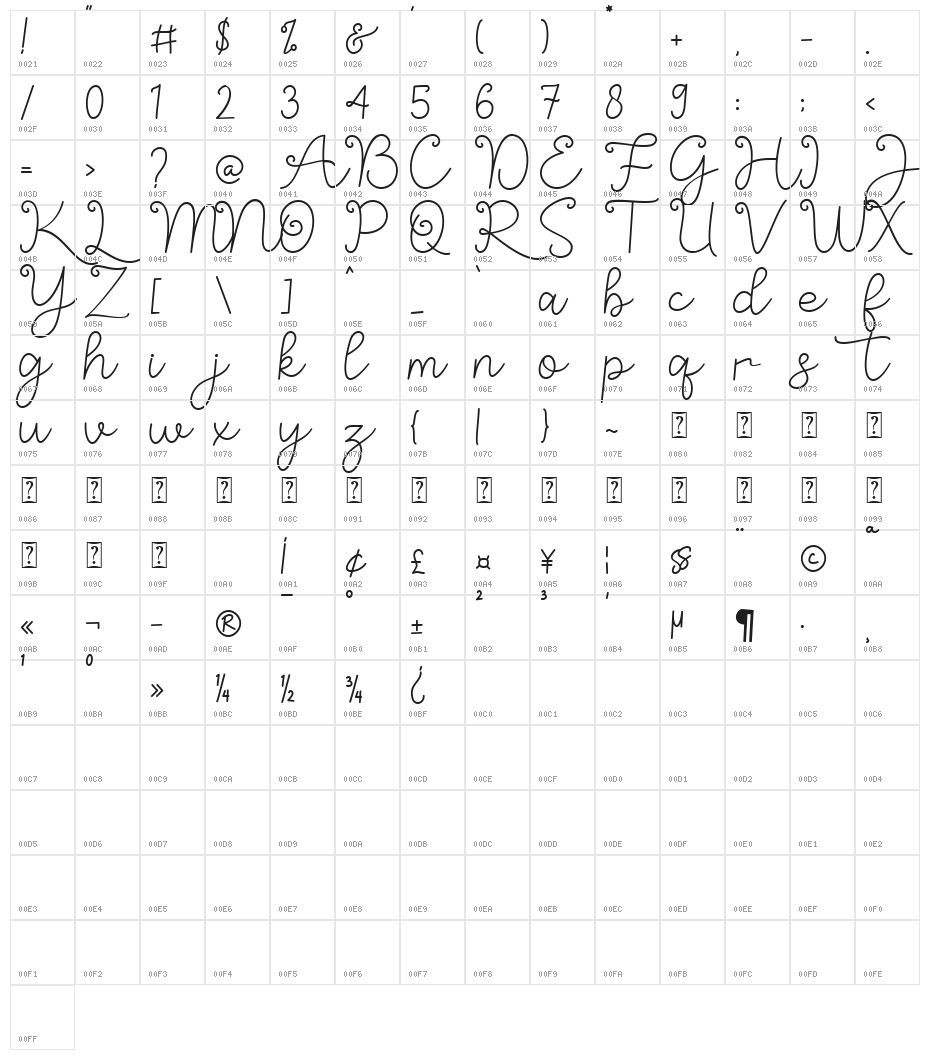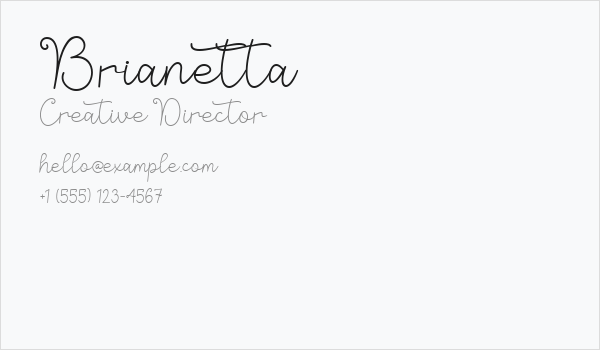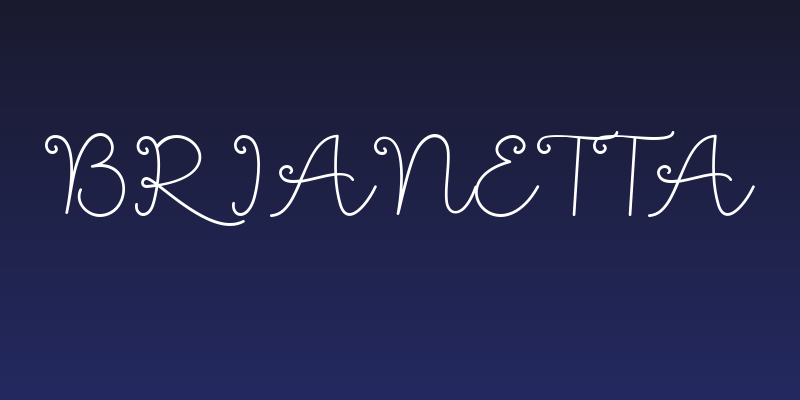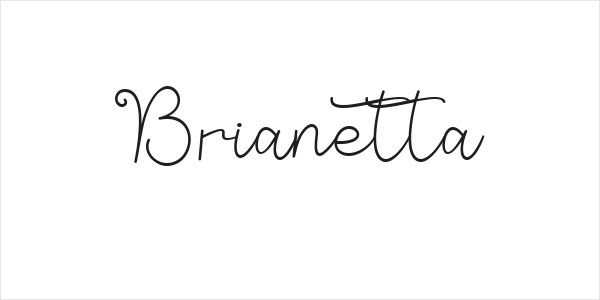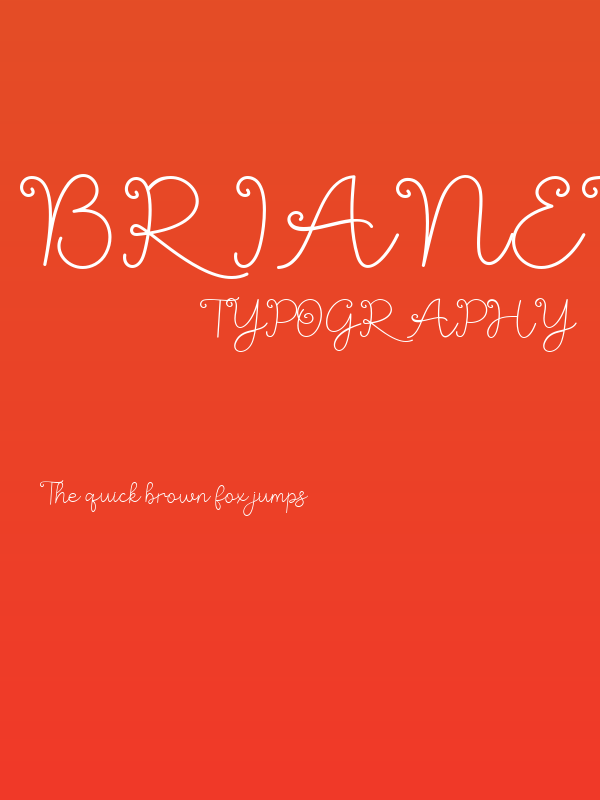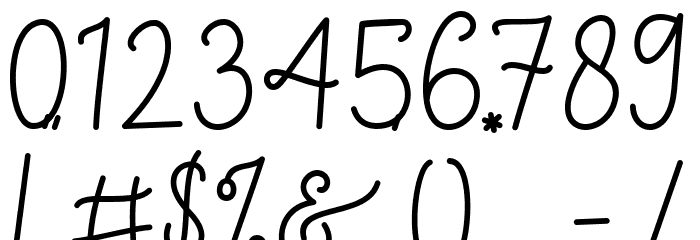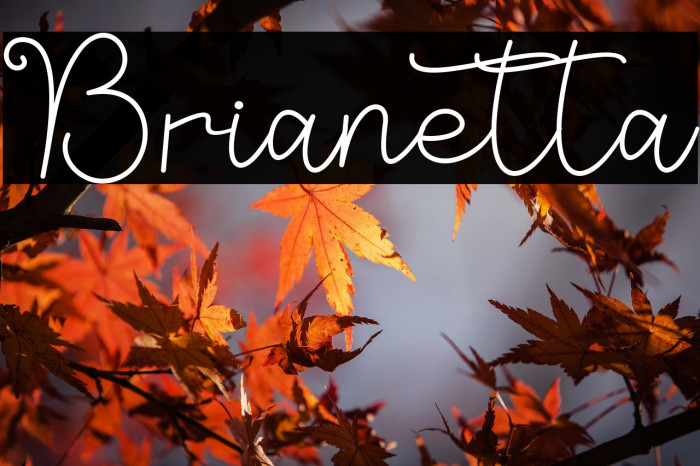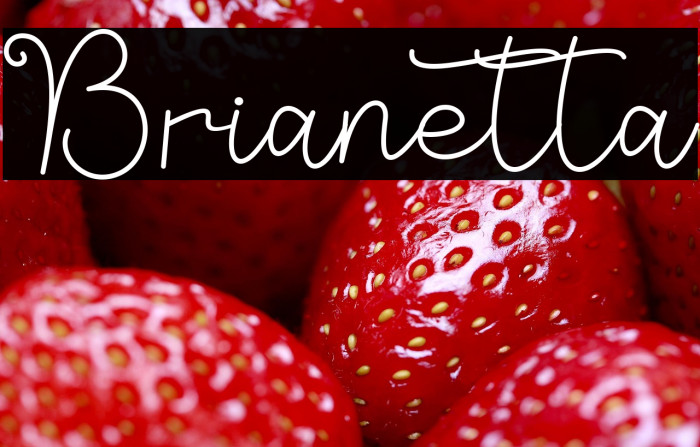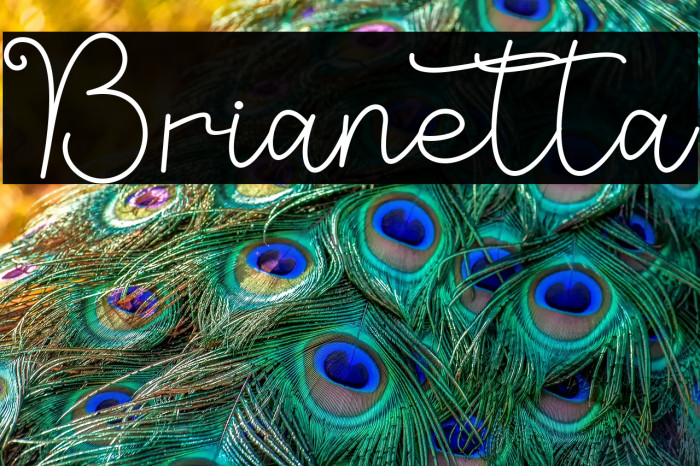
Brianetta Font
Brianetta Description
This font features a whimsical and flowing script style, characterized by its elegant and fluid letterforms. The uppercase letters exhibit a playful yet sophisticated design, with each character seamlessly connecting to the next. The lowercase letters maintain a consistent style, offering a harmonious blend of curves and loops. The numerals are crafted with a similar flair, ensuring readability while maintaining the font's artistic essence. Special characters are thoughtfully integrated, complementing the overall aesthetic. This font's unique charm makes it suitable for a variety of creative applications.